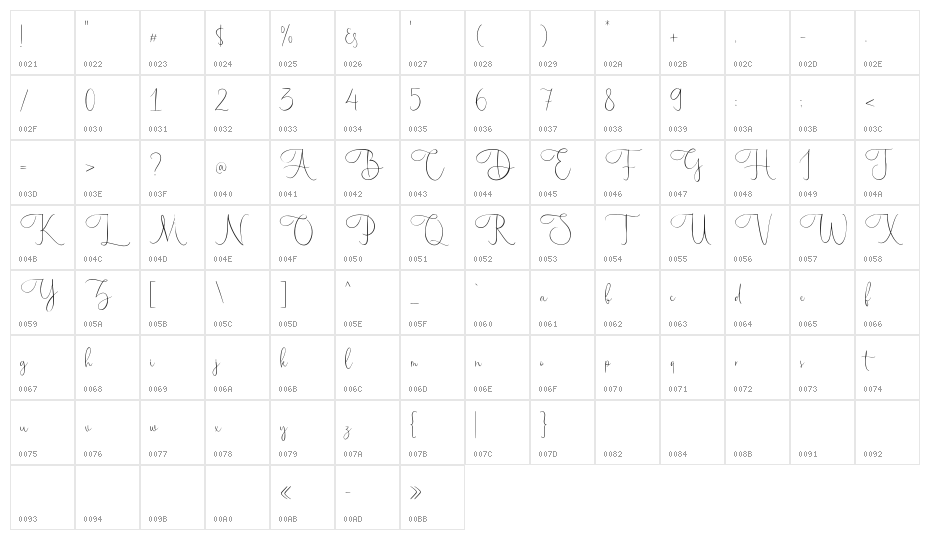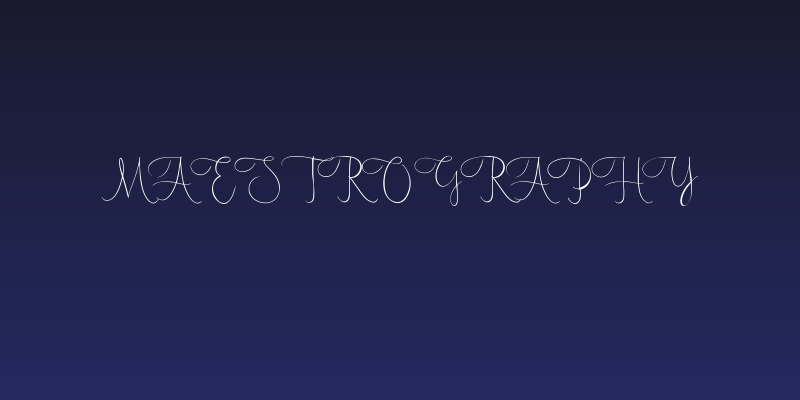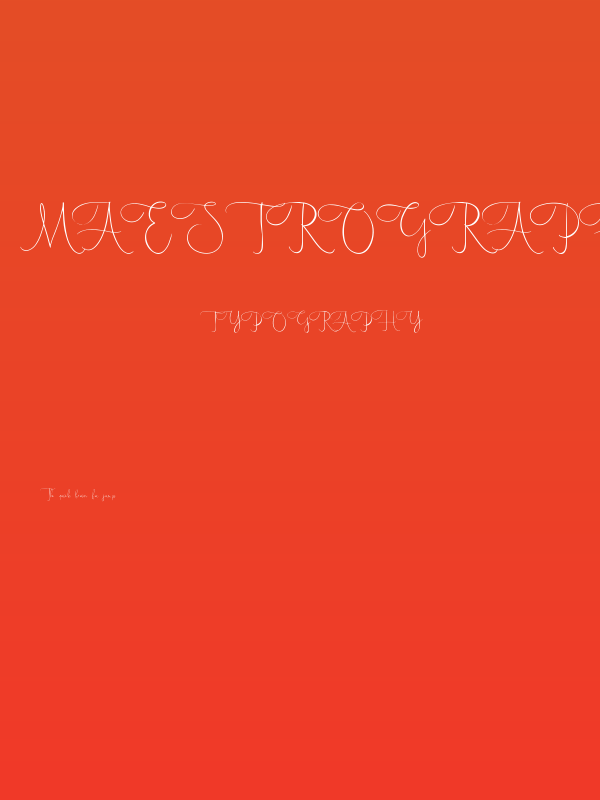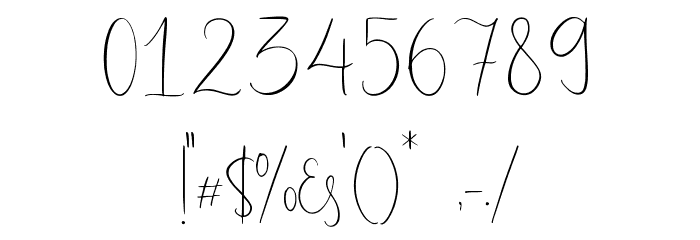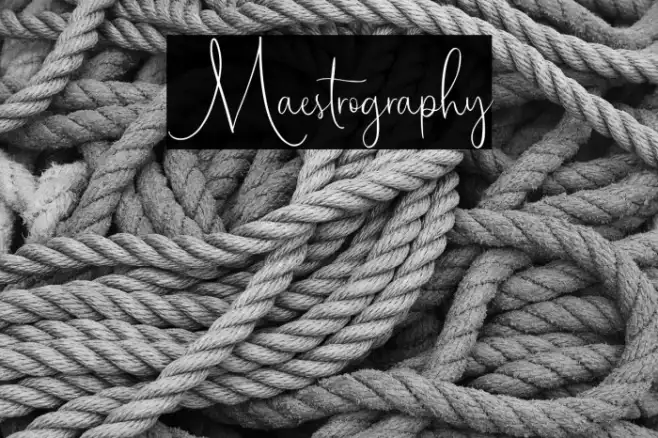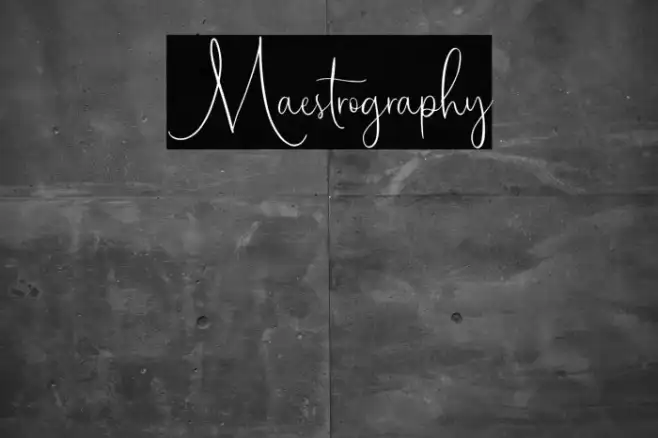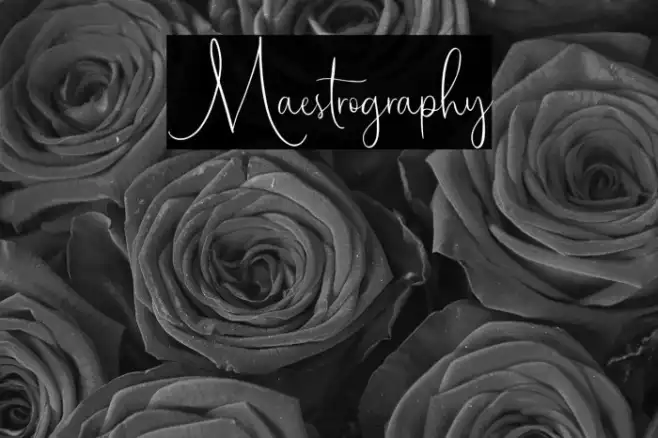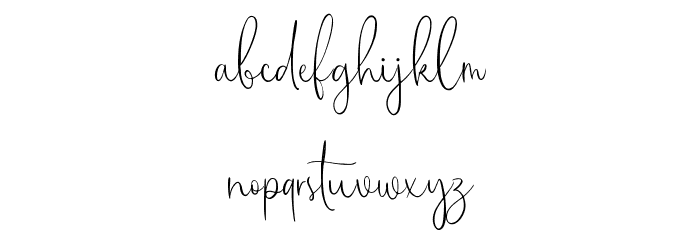
Maestrography Font
Maestrography Description
This font features an elegant and flowing script style, characterized by its delicate and intricate letterforms. The uppercase letters are ornate, with sweeping curves and loops that give a sense of movement and grace. The lowercase letters maintain a consistent style, with a slightly more restrained flourish, making them highly readable while still retaining a decorative flair. The numerals are slender and tall, complementing the overall aesthetic of the font. Special characters are designed with the same attention to detail, ensuring a cohesive look across all glyphs. This font is ideal for projects that require a touch of sophistication and elegance.
| Use Case | Headlines, Invitations, Branding |
| Proposed Projects | Ideal for wedding invitations, elegant branding, high-end product packaging, and decorative headlines. |